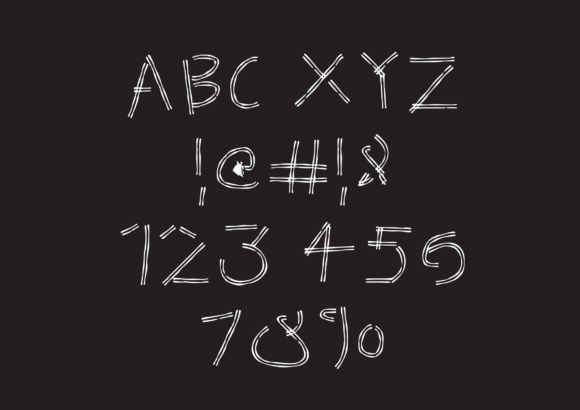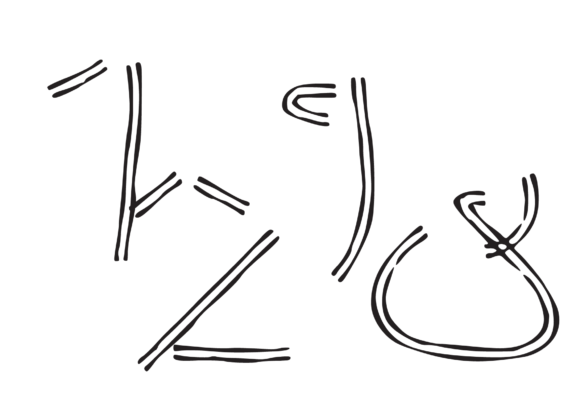
Introducing Broken Wood Font: The Fun and Funky Display Font for Urban Designs
Are you tired of using the same old fonts for your design projects? Do you want to add a touch of playfulness and uniqueness to your creations? Look no further than the Broken Wood Font! This fun, funky, and slightly odd display font is perfect for informal or urban design projects, and we’re excited to share its features and benefits with you.
What is Broken Wood Font?
Broken Wood Font is a display font that boasts a distinctive, rough-hewn aesthetic. Its irregular shapes and lines give it a delightfully quirky feel that’s sure to grab attention. The font’s unique character is reminiscent of hand-carved wood, with a texture that’s both rustic and charming.
Key Features of Broken Wood Font
- Unique and quirky design: Broken Wood Font’s unusual appearance sets it apart from more traditional fonts. Its irregular shapes and lines add a touch of whimsy to any design project.
- Perfect for informal or urban designs: This font is ideal for designs that require a playful, laid-back vibe. Use it for posters, flyers, social media graphics, or any other project that needs a bit of attitude.
- Highly versatile: Broken Wood Font can be used in a variety of contexts, from titles and headings to logos and branding materials.
- Easy to read: Despite its unconventional appearance, Broken Wood Font is surprisingly legible, making it suitable for use in a range of applications.
How to Use Broken Wood Font in Your Designs
Adding Broken Wood Font to your design project is easy! Here are a few tips to get you started:
- Use it as a title font: Broken Wood Font is perfect for headings and titles, where its unique character can really shine.
- Experiment with colors and textures: The font’s rustic, wooden aesthetic lends itself well to earthy color schemes and textures. Try pairing it with natural materials like wood or stone for a cohesive look.
- Mix it with other fonts: Broken Wood Font can be paired with a range of other fonts to create interesting contrasts. Try combining it with a clean, sans-serif font for a bold and eye-catching effect.
Broken Wood Font offers a range of benefits for designers and crafters, including:
- Instant recognition: The font’s unique character makes it instantly recognizable, adding a touch of personality to any design project.
- Time-saving: With Broken Wood Font, you can create professional-looking designs in no time. Its ease of use and versatility make it a valuable addition to any design toolkit.
- Inspiration: The font’s quirky aesthetic can help spark creativity and inspire new ideas. Use it as a starting point for your next design project and see where it takes you!
Broken Wood Font is a fun, funky, and slightly odd display font that’s perfect for informal or urban design projects. Its unique character, versatility, and ease of use make it a valuable addition to any design toolkit. Whether you’re a designer, crafter, or simply someone who loves to create, Broken Wood Font is sure to bring a touch of personality and whimsy to your work. So why not give it a try and see the amazing results for yourself?